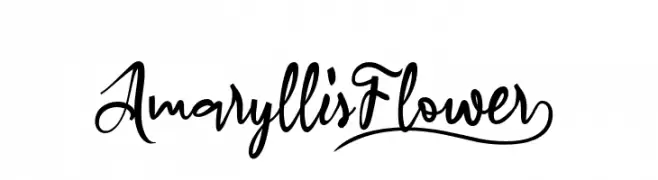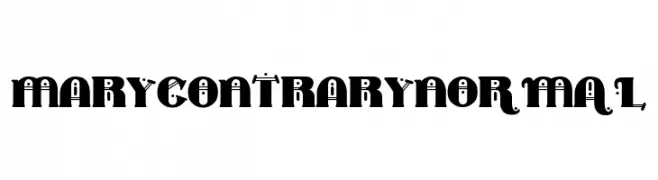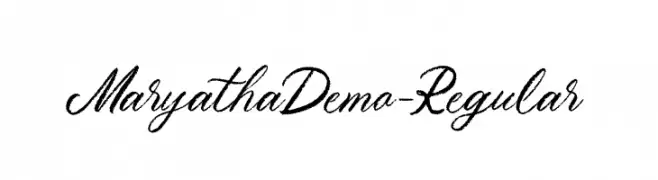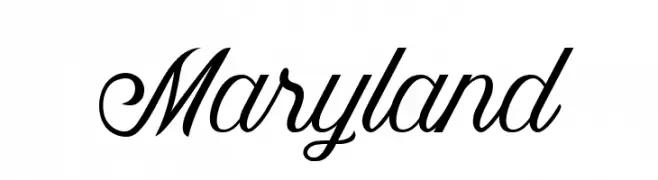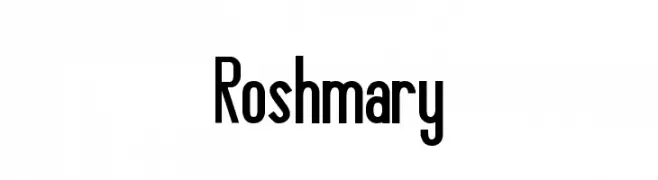
A bold, modern font with clean lines and a slightly condensed style.
An elegant script font with flowing, cursive letterforms and dramatic flourishes.
An elegant and flowing script font with ornate uppercase and smooth lowercase letters.
A cursive, handwritten font with elegant and flowing strokes.
An elegant script font with flowing, ornate cursive letters and intricate swashes.
A bold, decorative font with high contrast and intricate detailing.
A fluid and elegant handwritten font with artistic loops and curves.
An elegant script font with flowing, cursive letterforms and intricate flourishes.
An elegant, flowing script font with bold, cursive letterforms.
A lively, cursive font with elegant, flowing strokes and dramatic flourishes.